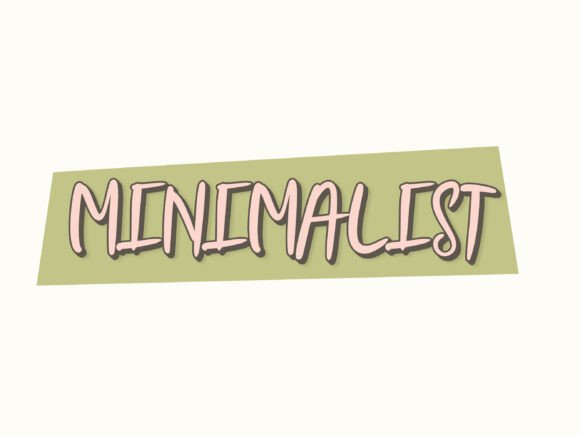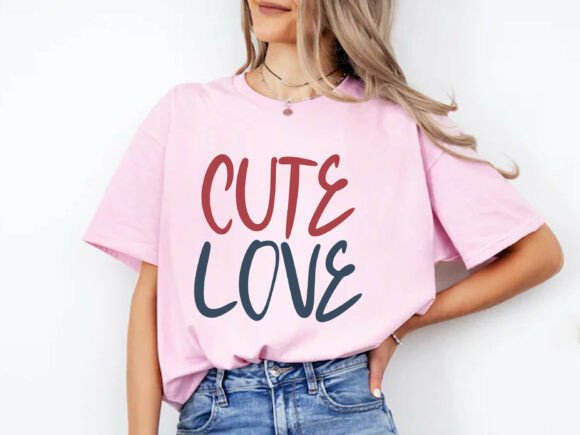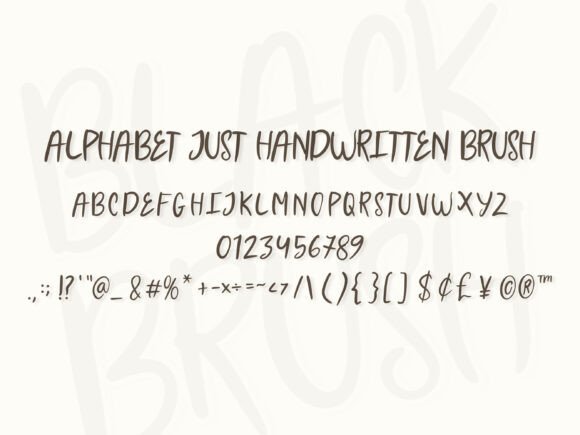
The Power of Handwritten Love
Have you ever been scribbling a love letter to your partner, or brainstorming a new street art idea, and felt like the words just flowed effortlessly onto the page? That’s the magic of the Black Brush Font – a timeless handwritten font that captures the essence of love and creativity. With its elegant, flowing script, this font is the perfect choice for spreading love and adding a touch of whimsy to your designs.
Whether you’re a designer, artist, or simply someone who loves to express themselves, the Black Brush Font is a valuable tool in your creative arsenal. Its versatility and charm make it a go-to choice for a wide range of projects, from wedding invitations to street art murals. With the Black Brush Font, you can add a personal touch to your designs and make them truly unforgettable.
Black Brush Font Key Features
- Unique Characteristics: Hand-drawn, brush-style font with a bold and edgy look
Designer Review: Black Brush Font
First impressions are everything, and Black Brush Font certainly doesn’t disappoint. ✨ The moment you see it, you know it’s going to be bold and eye-catching. The designers have successfully captured the essence of a traditional brush font, making it perfect for those who want to add a touch of elegance to their designs.
Here are some aspects that truly shine:
- ✨ Unique brush strokes that give the font a handmade feel
- ✨ Wide range of weights and styles to choose from
- ✨ Excellent for titles, headings, and any other text that needs to stand out
However, as with any font, there are some limitations:
- ⚠️ Limited character set, which may not be ideal for longer texts
- ⚠️ Not as versatile as some other fonts in terms of font sizes and styles
- ⚠️ May not be suitable for body text or large blocks of text
Overall, Black Brush Font is a fantastic addition to any designer’s toolkit. While it may have some limitations, its unique charm and style make it perfect for specific projects that require a bold, eye-catching font. If you’re looking to add some sophistication to your designs, Black Brush Font is definitely worth considering.
Black Brush Font is ideal for:
- Creative typography
- Vintage-inspired designs
- Artistic and creative projects
Alternatives to Black Brush Font
Great Vibes is a beautiful, elegant script font that is perfect for creating a sophisticated and luxurious feel. It is ideal for use in high-end branding, advertising, and editorial design. Compared to Black Brush Font, Great Vibes has a more refined and polished look, making it suitable for formal and professional applications.
Carolyna Pro is a modern, cursive font that is designed for use in a variety of contexts, from fashion and beauty to food and beverage. It has a unique, handwritten feel that is perfect for creating a personal and approachable brand image. Unlike Black Brush Font, Carolyna Pro has a more contemporary and trendy look, making it suitable for younger audiences and edgier designs.
Didot Script
Didot Script is a classic, elegant font that is inspired by the traditional French script style. It is perfect for use in high-end branding, luxury packaging, and fine art applications. Compared to Black Brush Font, Didot Script has a more refined and sophisticated look, making it suitable for formal and professional contexts.